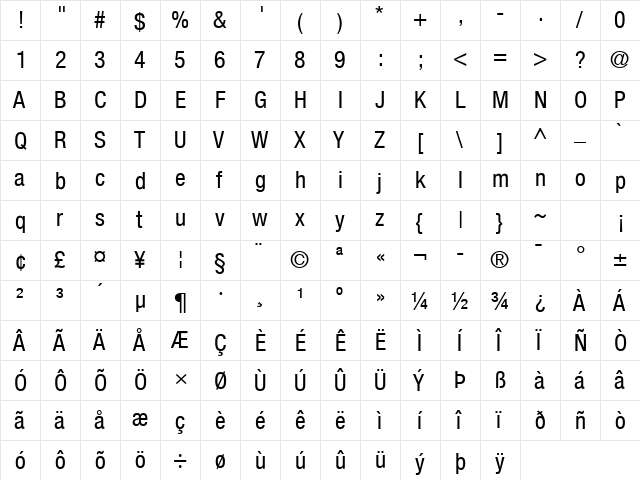
Helvetica Neue LT Com 57 Condensed Font Preview
| Foundry | Linotype GmbH |
| Designer | Linotype Design Studio |
Design Context for Helvetica Neue LT Com Typeface
Helvetica Neue LT Com offers clean, dependable letterforms without strong stylistic allegiance, making it a practical choice for designers who need flexibility. The delicate stroke weight brings airiness and refinement to layouts. The condensed width makes it efficient for tight spaces without sacrificing legibility.
Pro Tip: Pair Helvetica Neue LT Com with a font of contrasting weight or personality to build a more expressive typographic hierarchy.